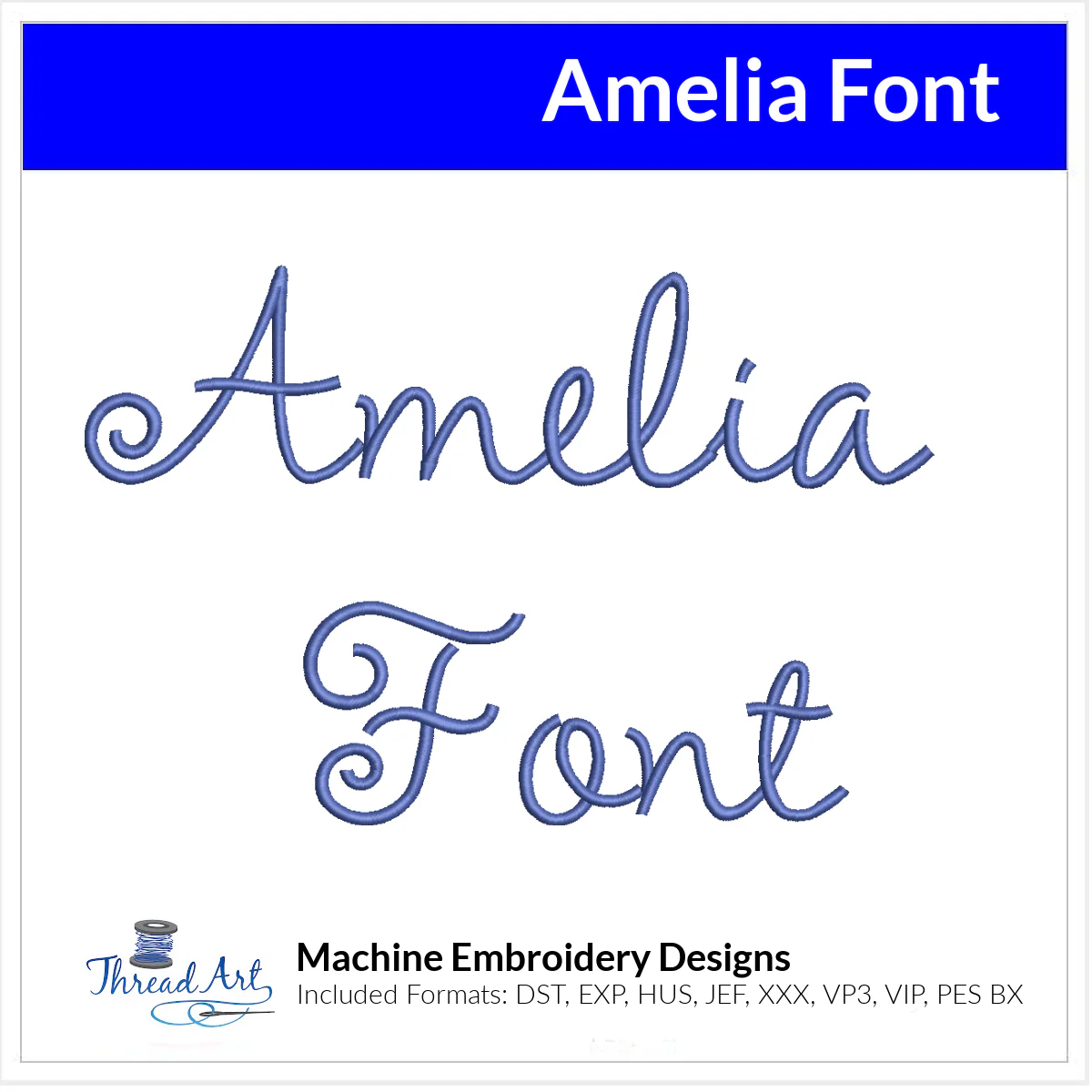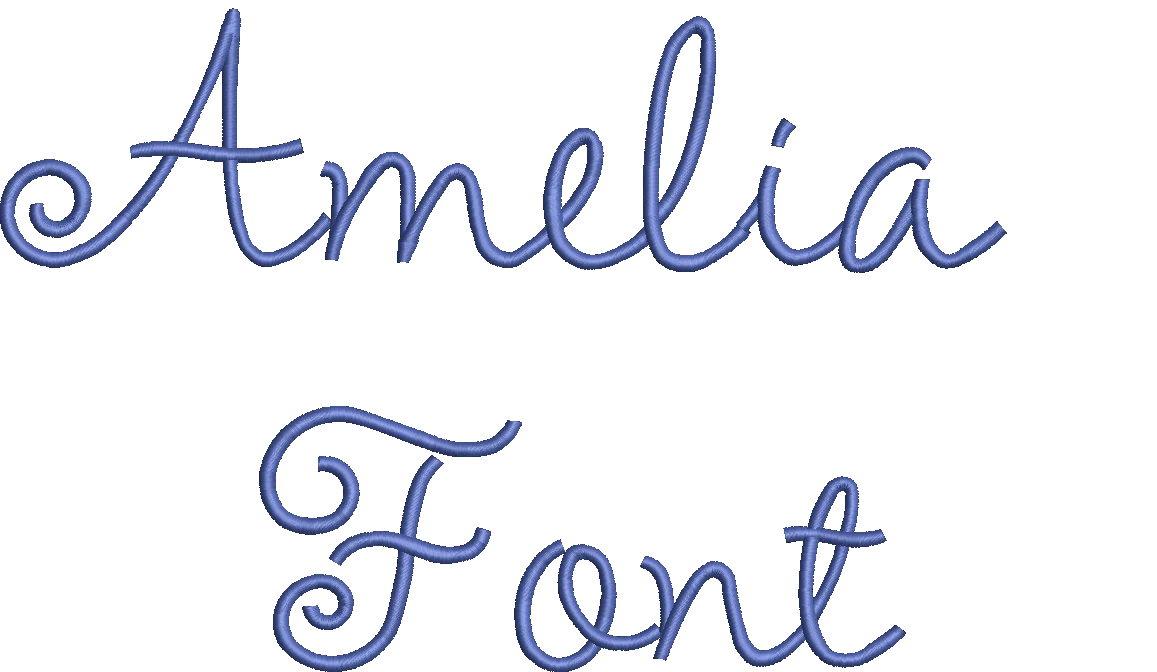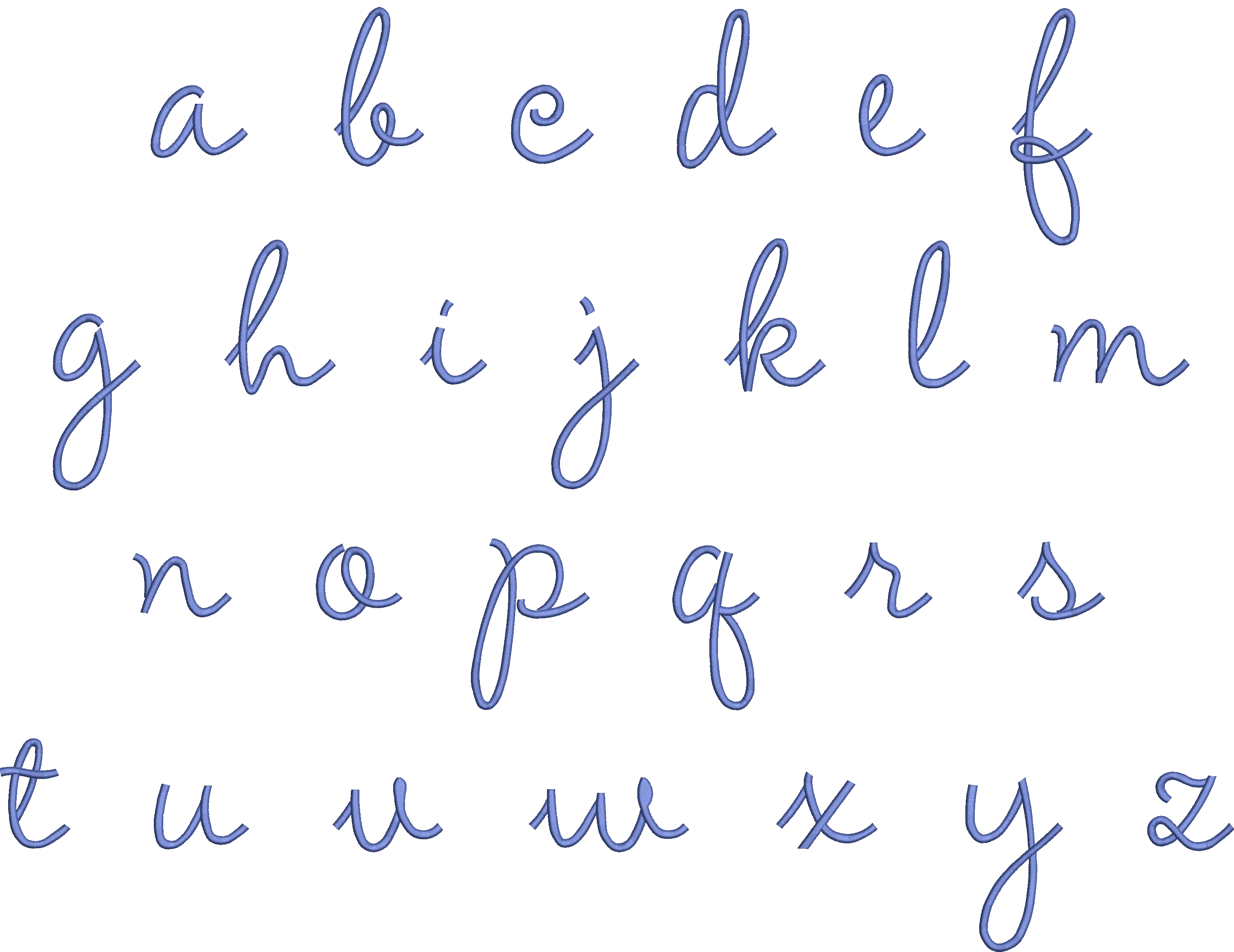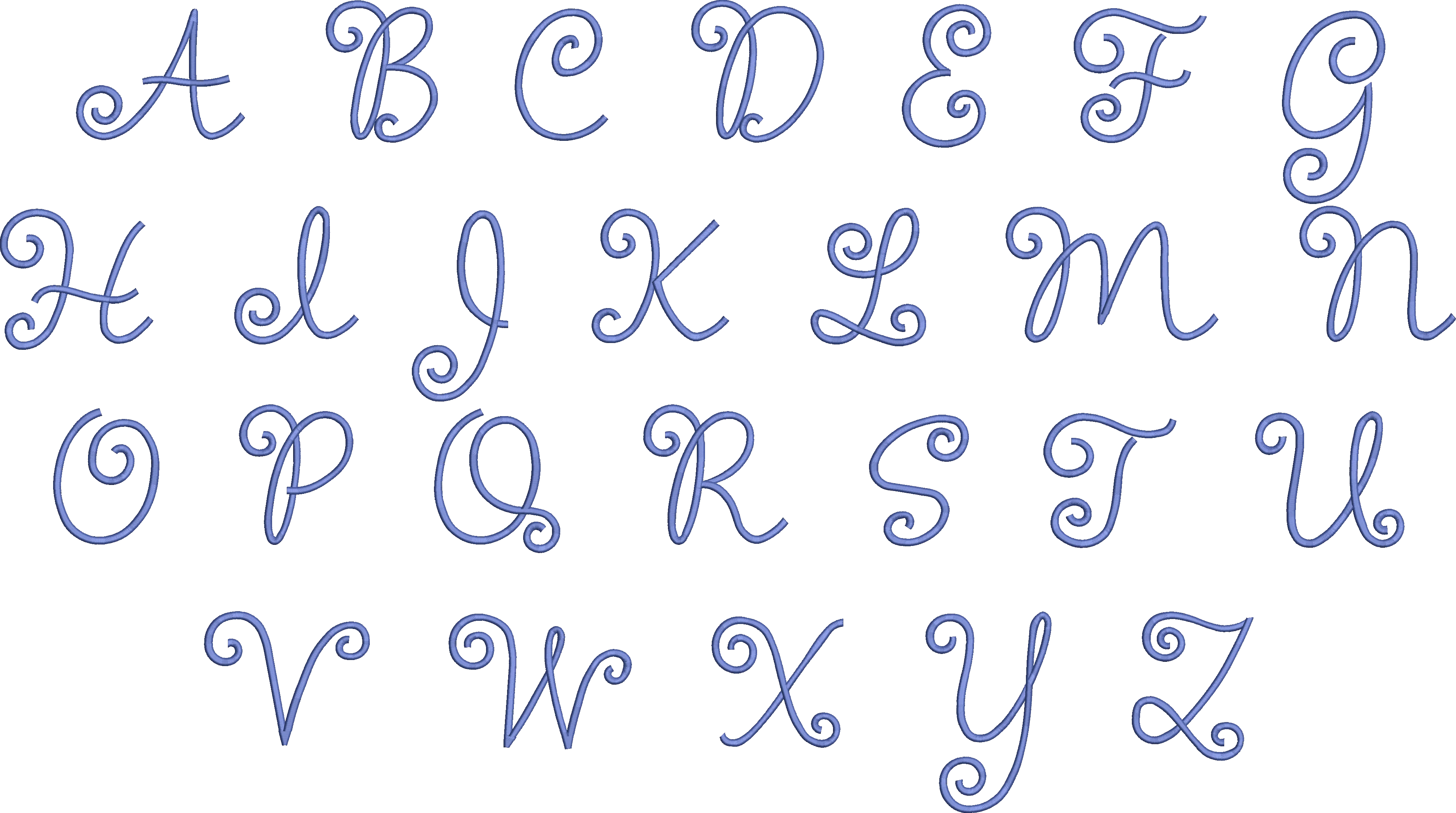
Amelia Font Design -- Machine embroidery font design set with different design sizes included. Letters are 1.5", 2" and 1" tall and includes both uppercase and lowercase in popular formats: DST, EXP, HUS, JEF, PES, XXX, VIP, VP3, BX. Convenient for those with multiple machines. Designs will be available for instant download. Ā Choose physical USB stick to have designs sent via mail on a usb stick. Satin stitch